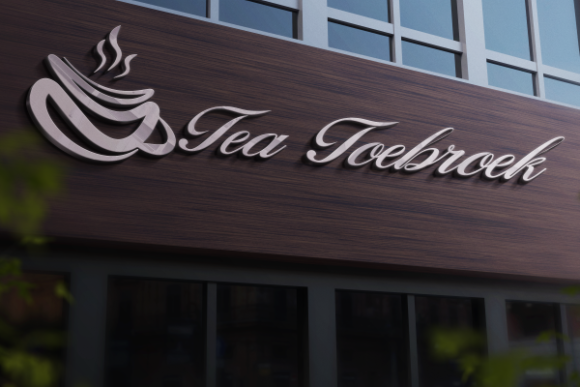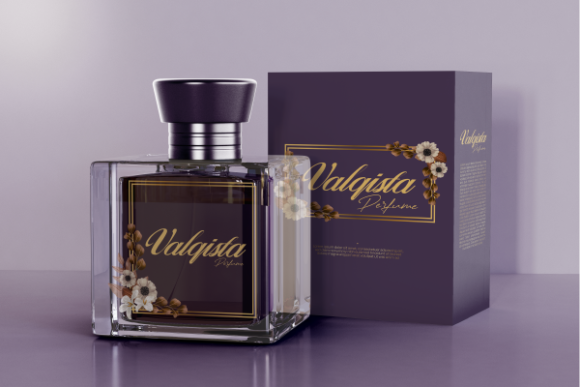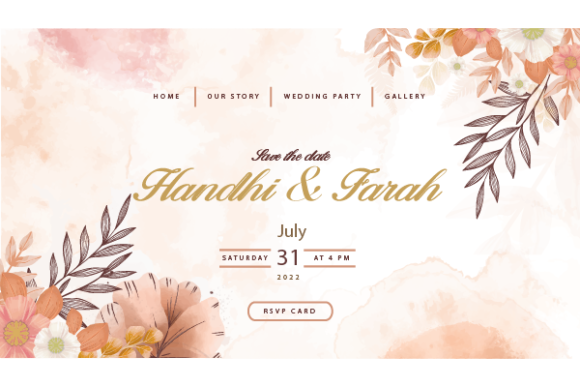
Introduction to Jinayra Font
Have you ever stared at a blank page, waiting for the perfect font to bring your creative project to life? It’s that moment when the right typography can elevate your design from ordinary to extraordinary. For designers seeking a timeless elegance, the Jinayra Font is an answer to their prayers.
This sophisticated script font is designed to evoke the classic beauty of calligraphy, with a contemporary twist. Its balanced form and varied strokes make it perfect for enhancing the beauty of your projects, whether you’re working on a branding campaign, a wedding invitation, or a digital design.
Key Features of Jinayra Font
- High-quality design resource ideal for creative projects, offering a unique and elegant touch.
- Features a clean and sophisticated design, making it perfect for a variety of creative projects, from branding to editorial design.
- Supports various languages, including Latin, making it a versatile design resource for global projects.
Honest Review: Jinayra Font
I recently had the chance to work with the Jinayra Font for a creative project, and I must say it was a pleasant experience. The font is a great design resource for anyone looking for a unique and stylish typeface.
- ✨ High quality: The Jinayra Font is incredibly detailed and has a crisp, clean look that makes it perfect for a variety of applications.
- ⚠️ Limited language support: While the font is available in multiple weights, it only supports a limited number of languages, which may be a concern for designers who need to work with multilingual projects.
- ⚠️ Not ideal for small text: While the font is stunning at larger sizes, it can become difficult to read when used for small text.
Overall, I was impressed with the Jinayra Font and would definitely consider using it for future projects. While it may have a few limitations, its unique style and high quality make it a valuable addition to any designer’s toolkit.
Tips for Getting the Most Out of Jinayra Font
To get the most out of the Jinayra Font, experiment with different font sizes, styles, and combinations to find the perfect fit for your design project. You can also use the font in conjunction with other design elements, such as graphics and images, to create visually appealing designs.
Common Use Cases for Jinayra Font
The Jinayra Font is suitable for a wide range of design projects, including business cards, brochures, posters, and websites. It’s also a great choice for creating invitations, menus, and other print materials that require a touch of sophistication.